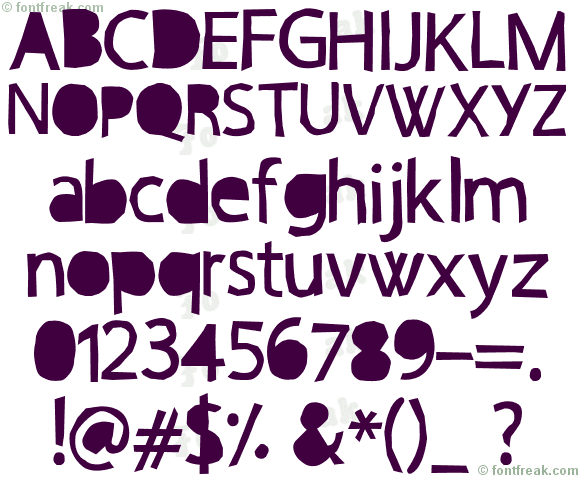
PAPERCUT' CRE
About PAPERCUT' CRE
PAPERCUT' CRE by FRED CRE is a distinctive decorative font that captures the essence of hand-cut paper art. This font features irregular, playful letterforms that mimic the appearance of letters crafted from paper, offering a unique texture and depth. The stroke weight varies throughout, giving it a dynamic feel, while the lack of strict spacing creates an organic flow, making it visually engaging and suitable for a range of creative applications.
The PAPERCUT' CRE font is perfect for various use cases, particularly where a whimsical or artistic touch is desired. It works exceptionally well for wedding invitations, where its charming style can add a personal flair. Additionally, this font is ideal for movie posters, especially in genres like indie films or animations, as it conveys a sense of creativity and approachability. Restaurant menus can also benefit from this font, lending a casual yet artistic vibe that attracts diners. Furthermore, it’s a great choice for social media graphics, helping content creators make their posts stand out in a crowded digital landscape.
The target audience for this font includes graphic designers looking to add a playful element to their projects, small business owners wanting to create a memorable brand identity, and content creators seeking to capture attention with eye-catching visuals.
What sets the PAPERCUT' CRE font apart is its unique ability to blend artistry with functionality. It stands out in a world filled with conventional typefaces, offering a fresh perspective that inspires creativity. Whether you’re designing invitations, marketing materials, or online content, the PAPERCUT' CRE font free download is an excellent choice for those seeking to make a lasting impression.